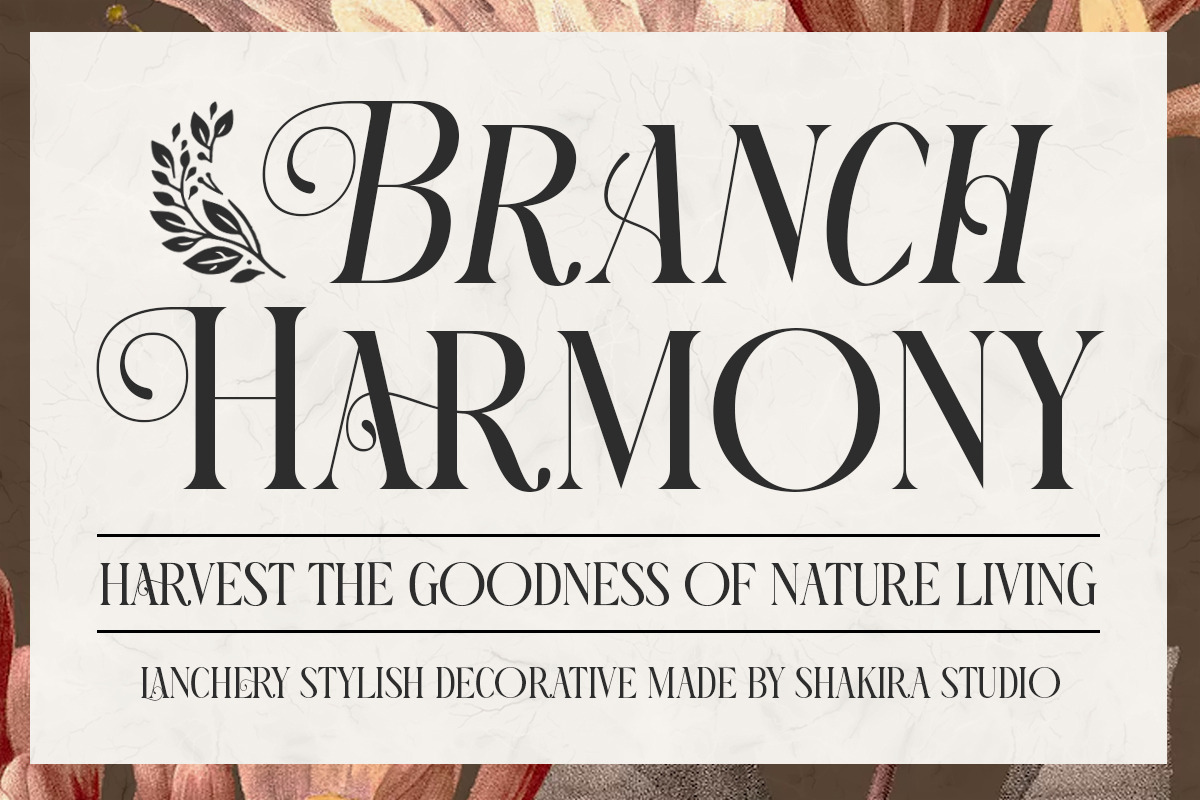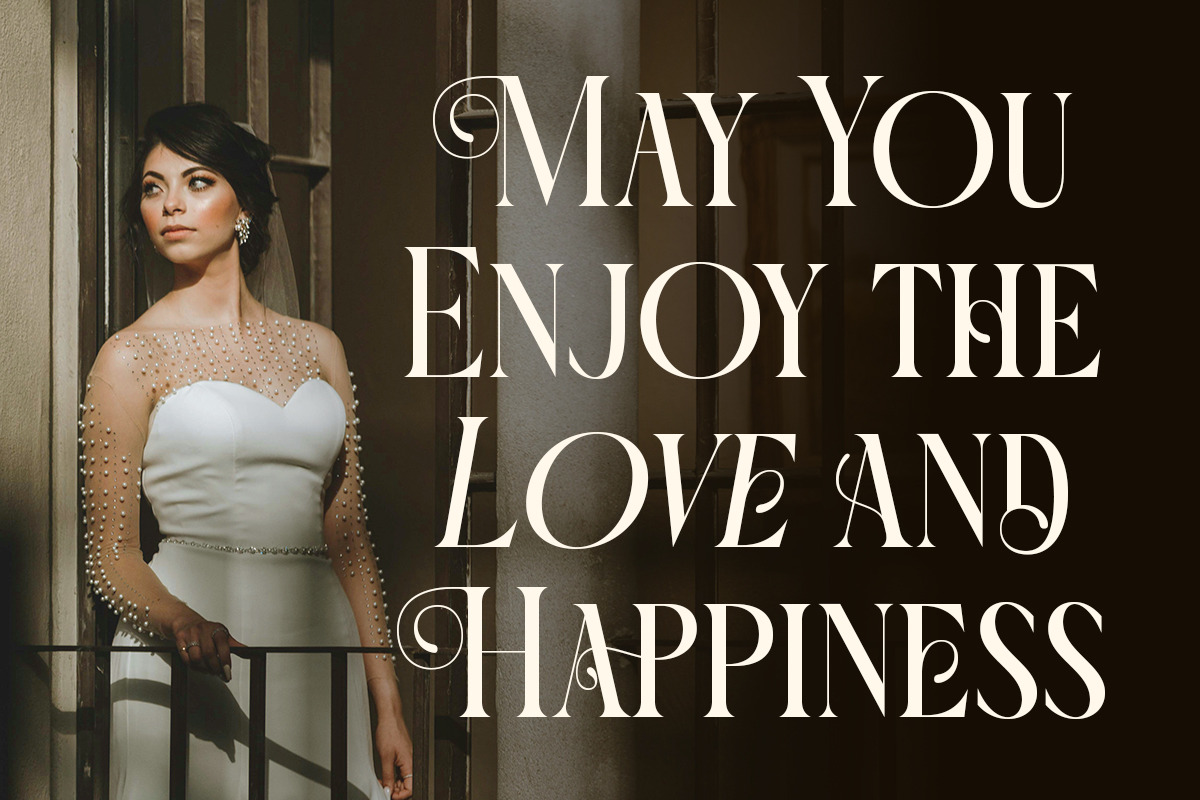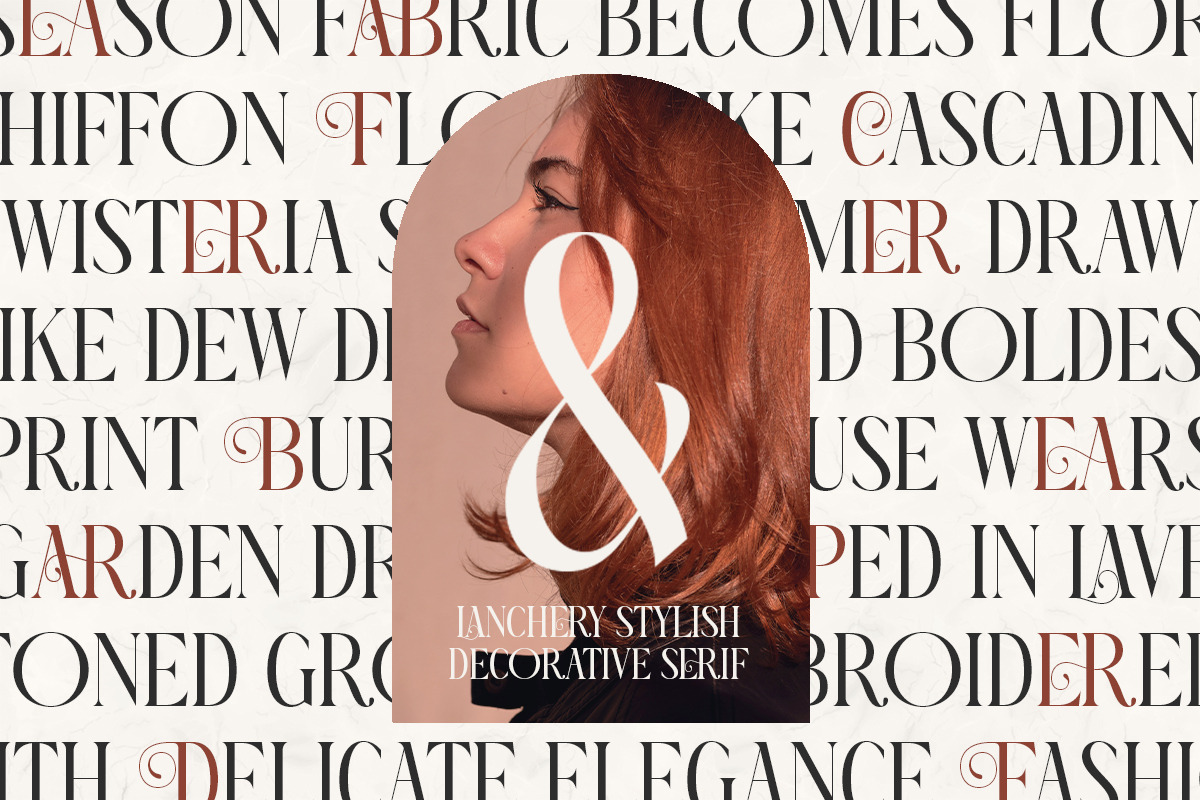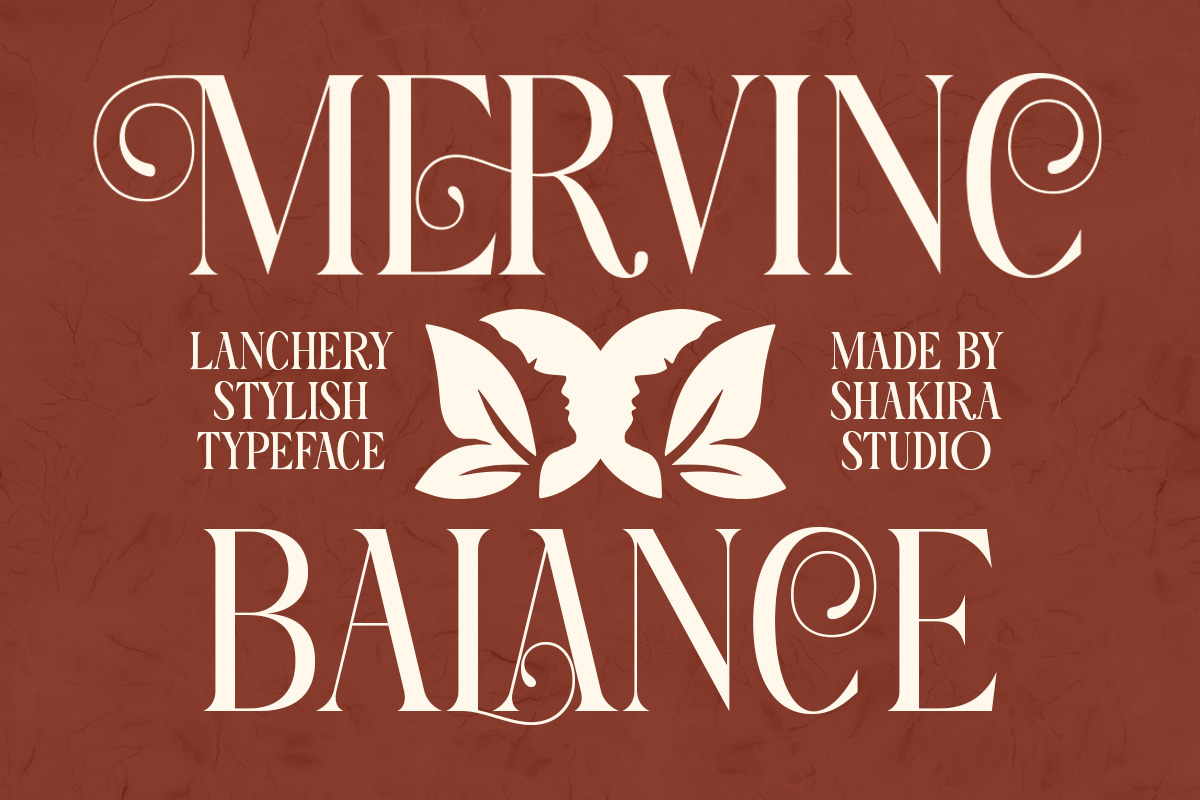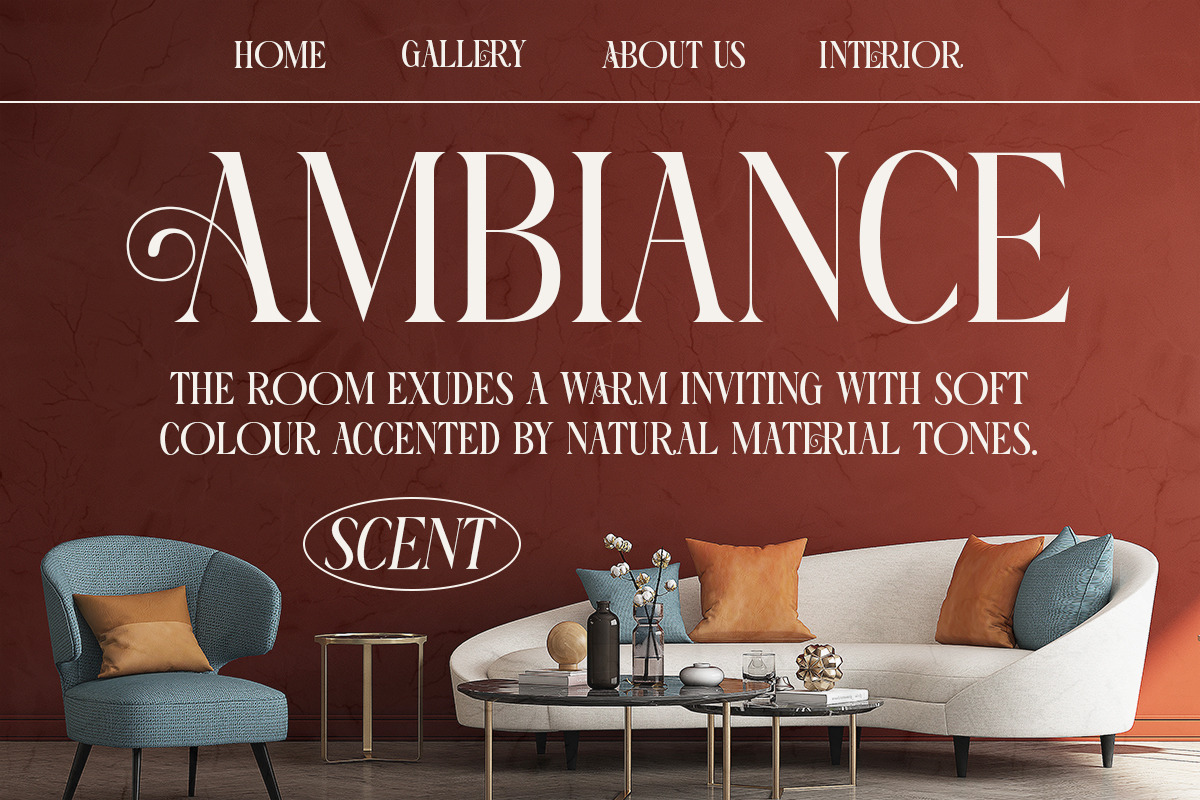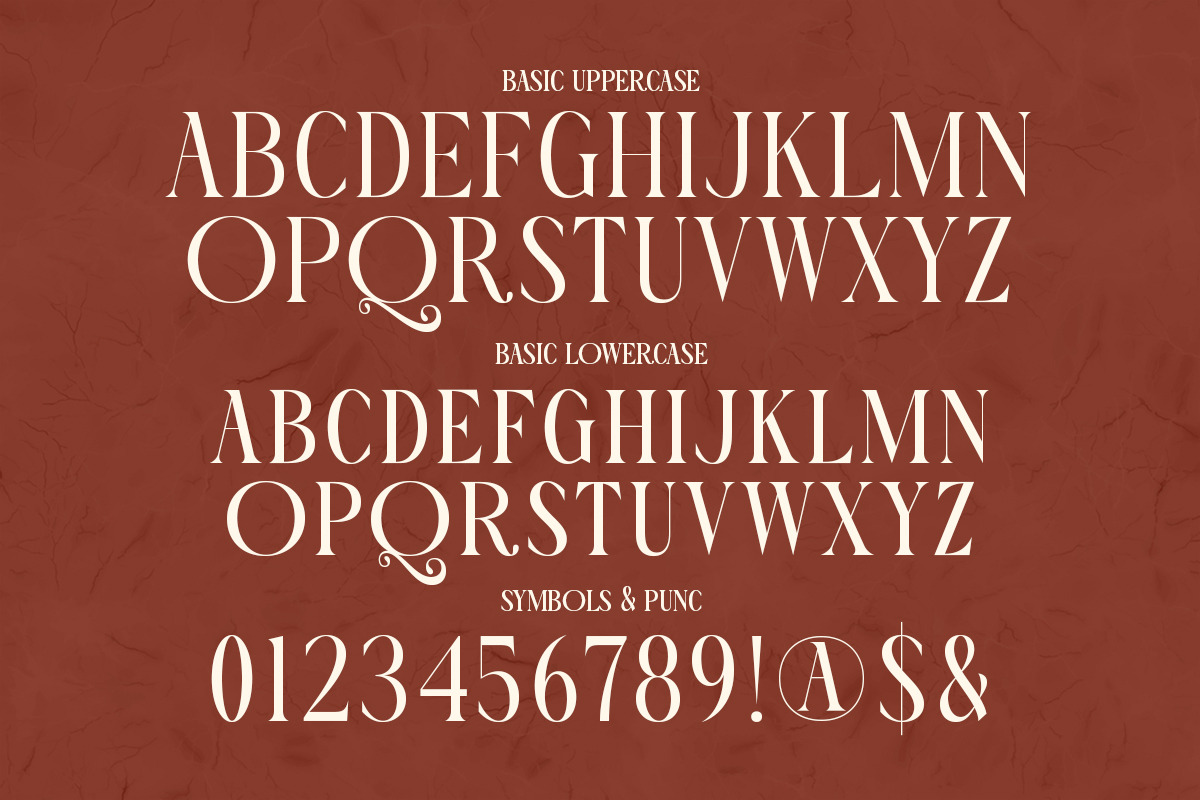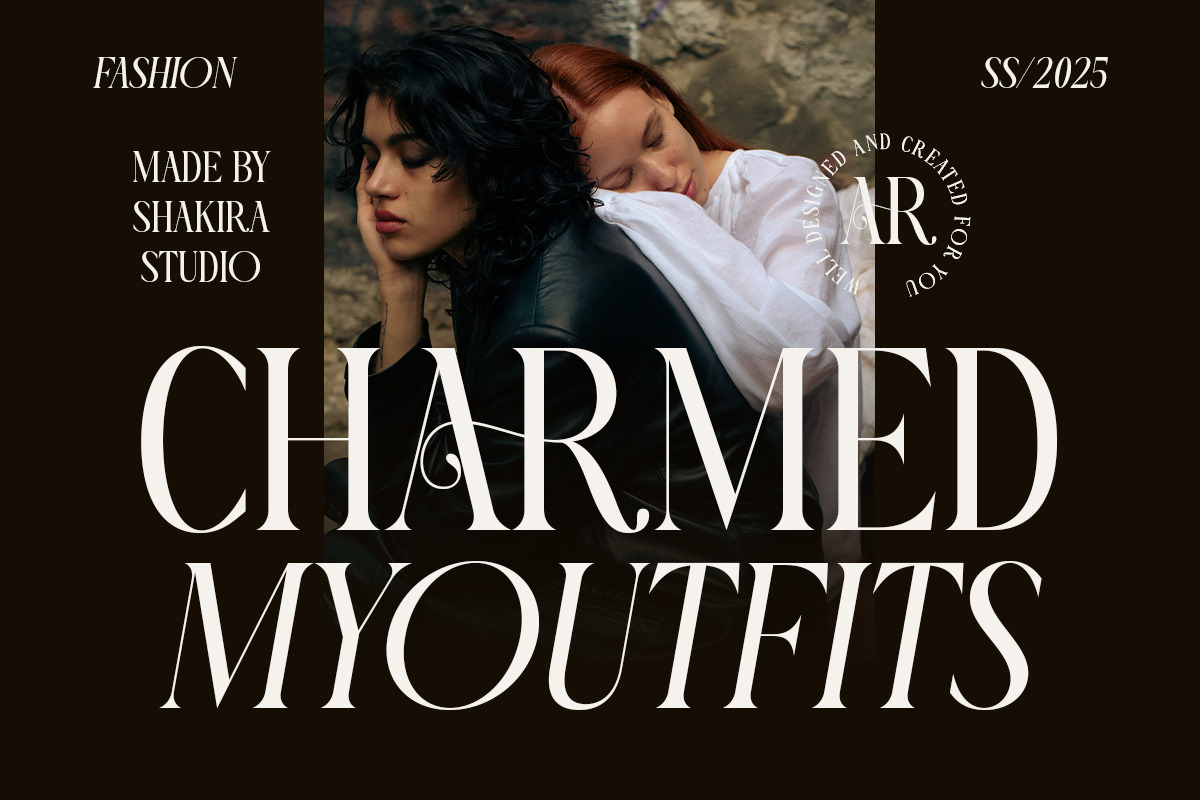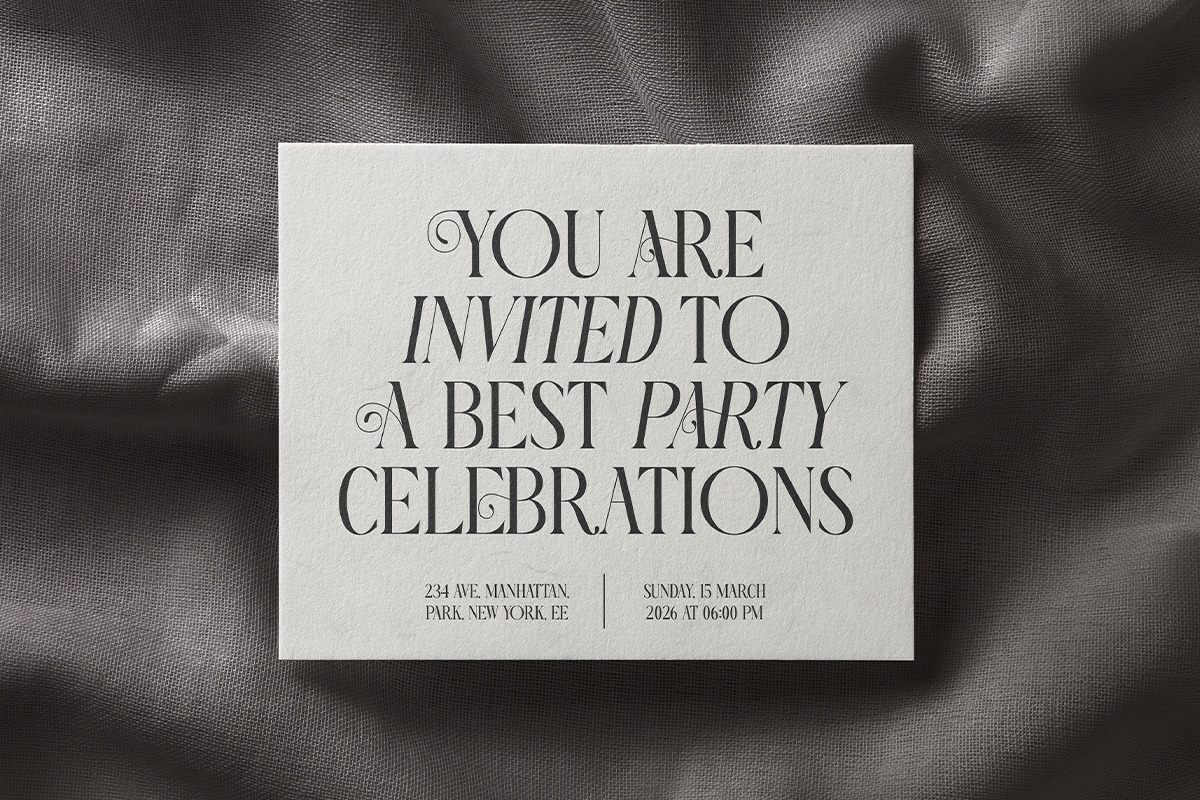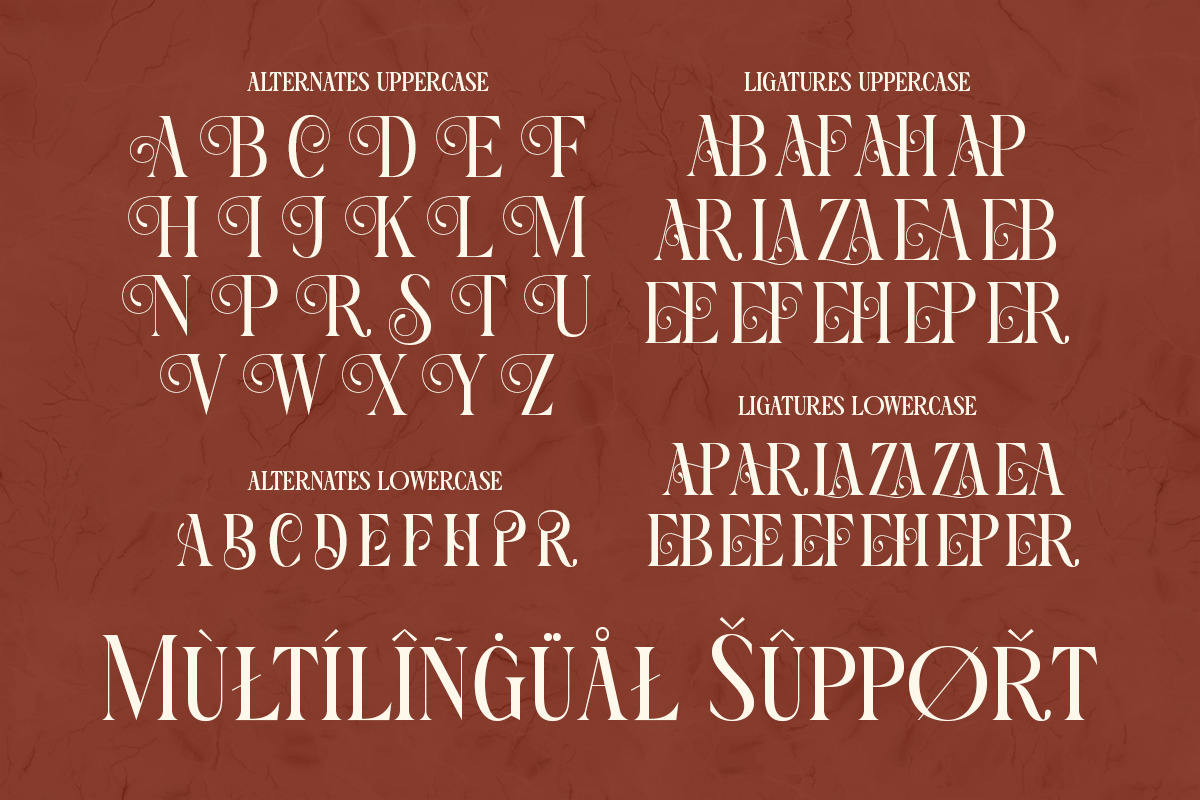
Lanchery - Elegant Luxury Stylish
Introducing Lanchery - a refined serif typeface with high contrast and graceful sophistication.
Lanchery blends elegant curves with sharp details, creating a font that feels delicate yet structured. Each character is carefully crafted to bring a sense of timeless beauty and modern clarity, ideal for design work that values both impact and subtlety.
Perfect for premium branding and editorial design, Lanchery adds quiet confidence and elegance to your visual communication.
Whether used for magazine titles, logo design, or product packaging, it brings a poised aesthetic that feels contemporary while rooted in classic serif tradition.
- Regular & Italic
- Stylistic alternates & ligatures
- Optimized for print & digital use
- Elegant branding & fashion identity
- Editorial layouts & book design
- Beauty packaging & product labels
- Wedding invitations & boutique stationery
- Website headers & blog visuals
- Art direction & creative portfolios